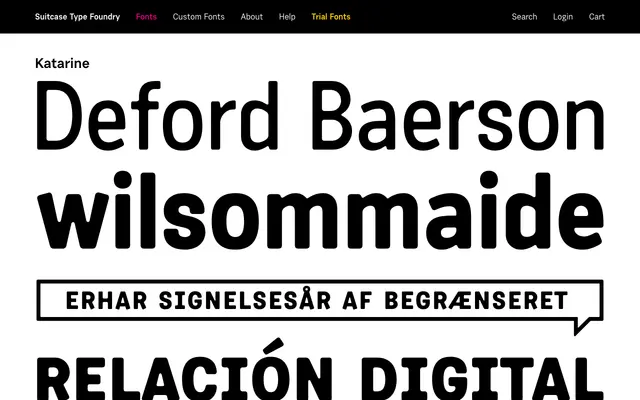
A humanist sans-serif from Prague-based Suitcase Type Foundry, with limited detail available from the product page.
Katarine is a humanist sans-serif released by Suitcase Type Foundry, a Prague-based foundry with a track record of well-crafted Central European typefaces. The page yields minimal technical or historical detail, making a fuller assessment difficult. Based on the foundry's broader catalogue, it is likely suited to text-setting and editorial use.
The name and foundry context suggest a humanist sans-serif in the Central European tradition; without further detail, classified as humanist sans based on Suitcase Type Foundry's typical design approach.